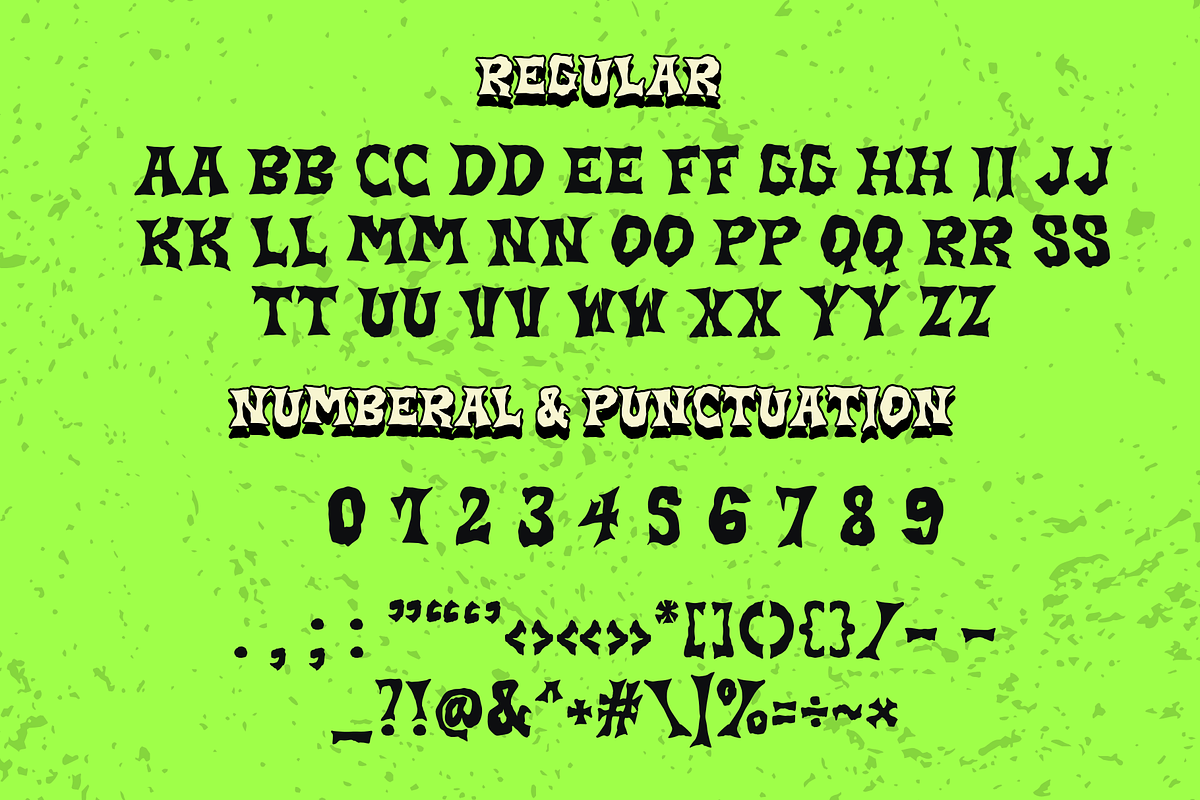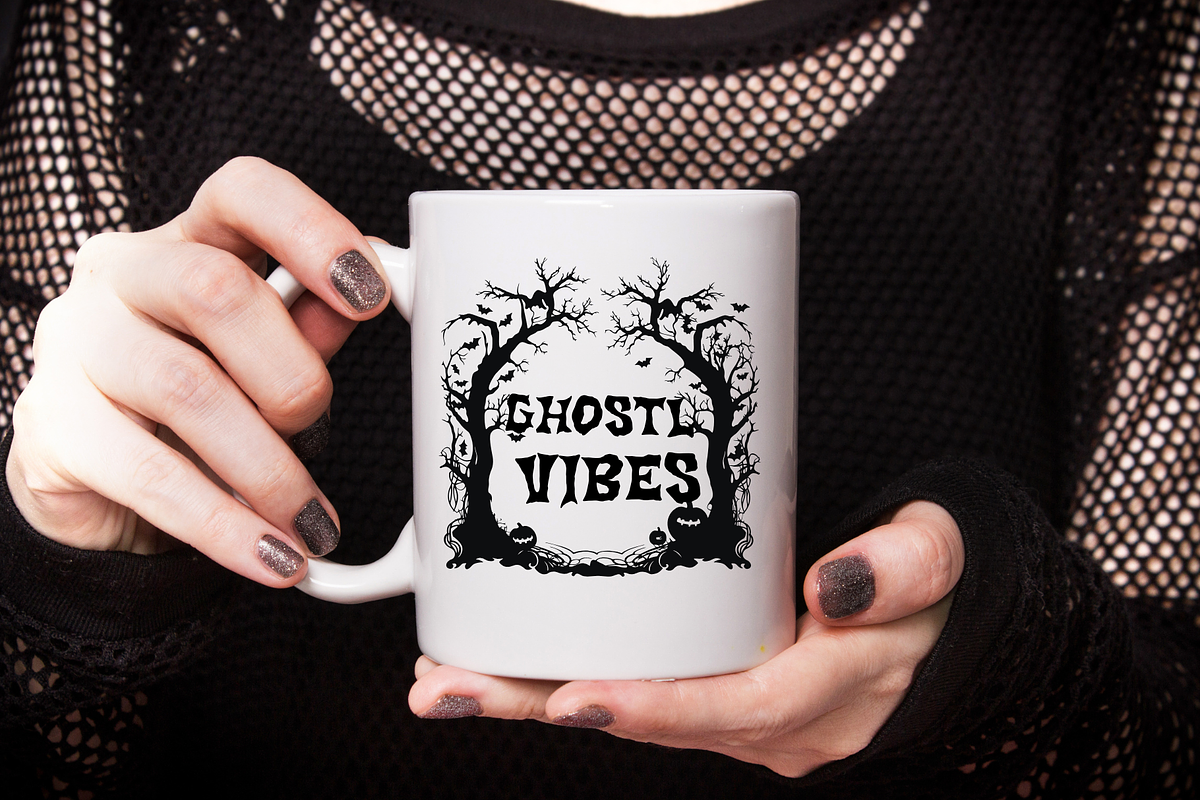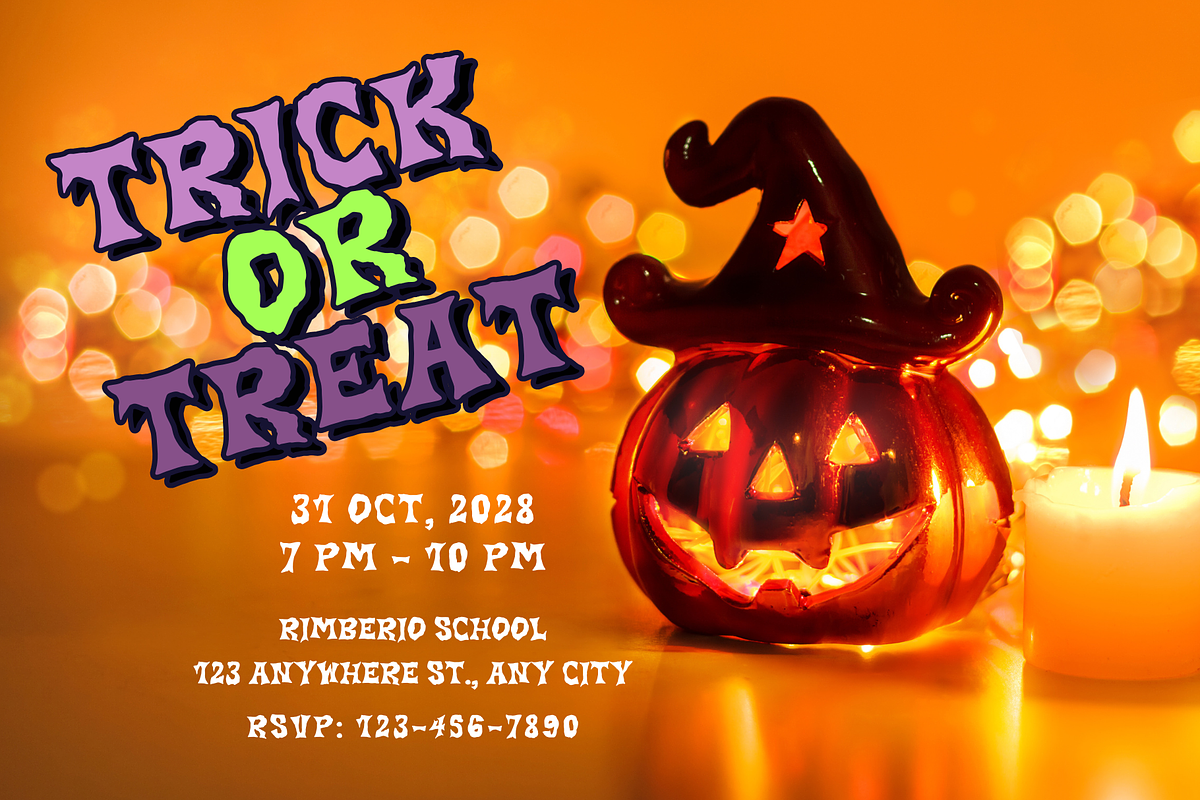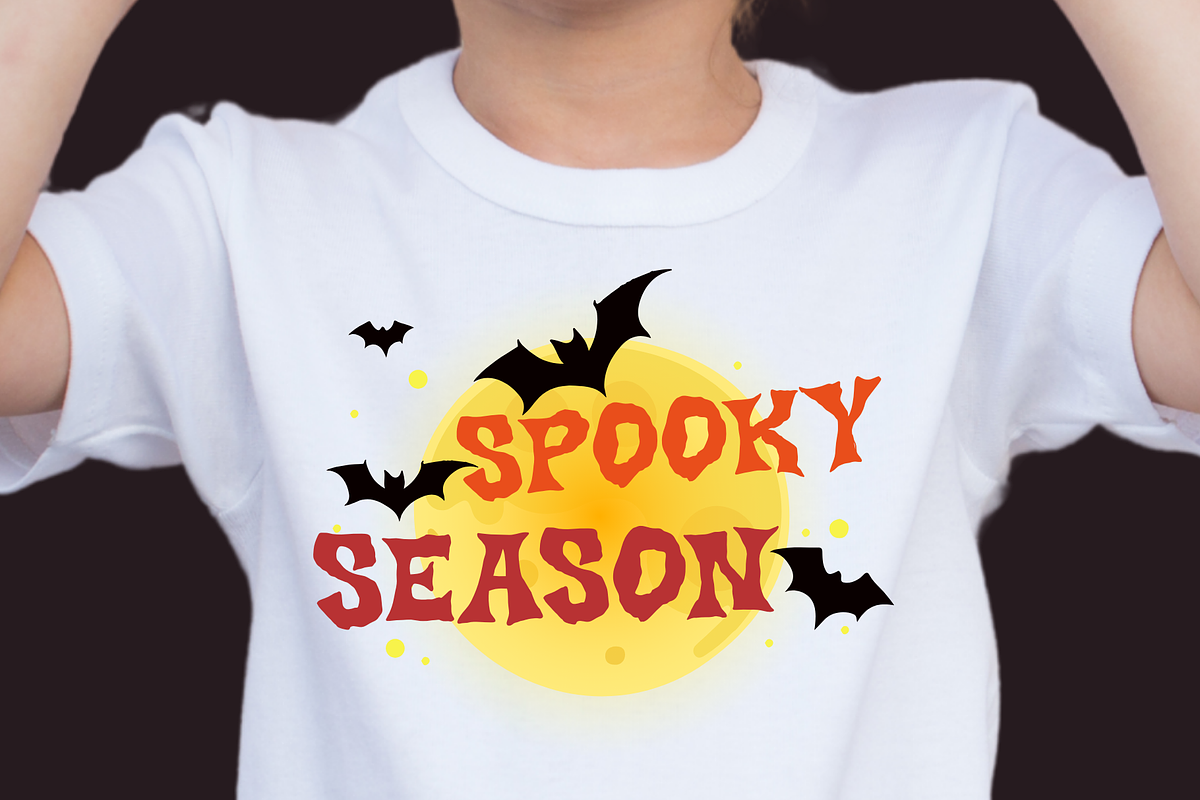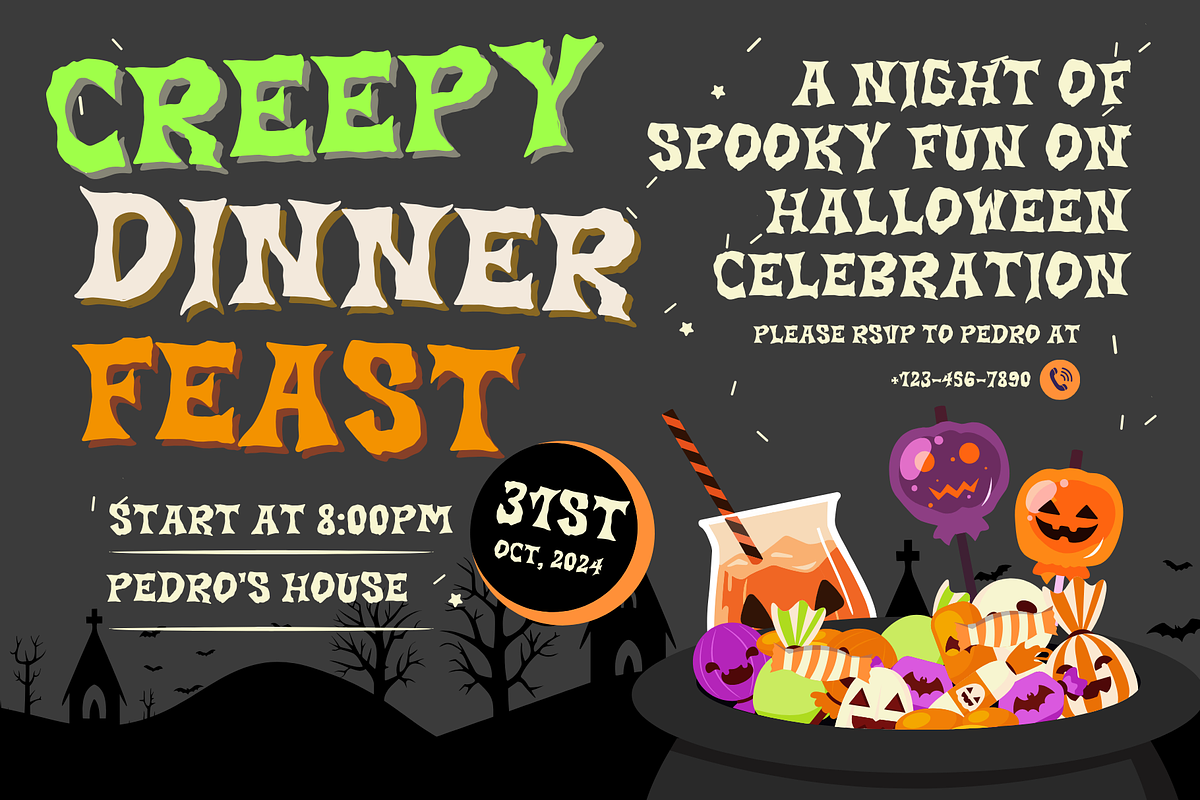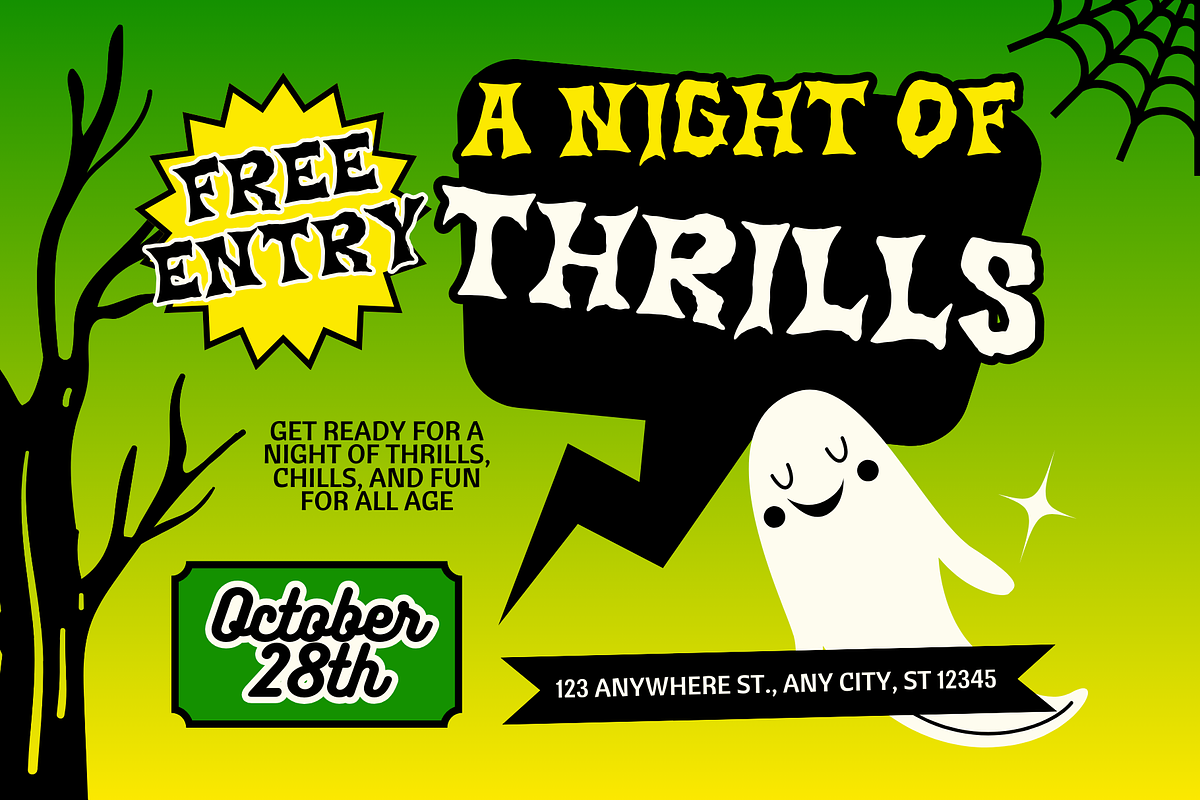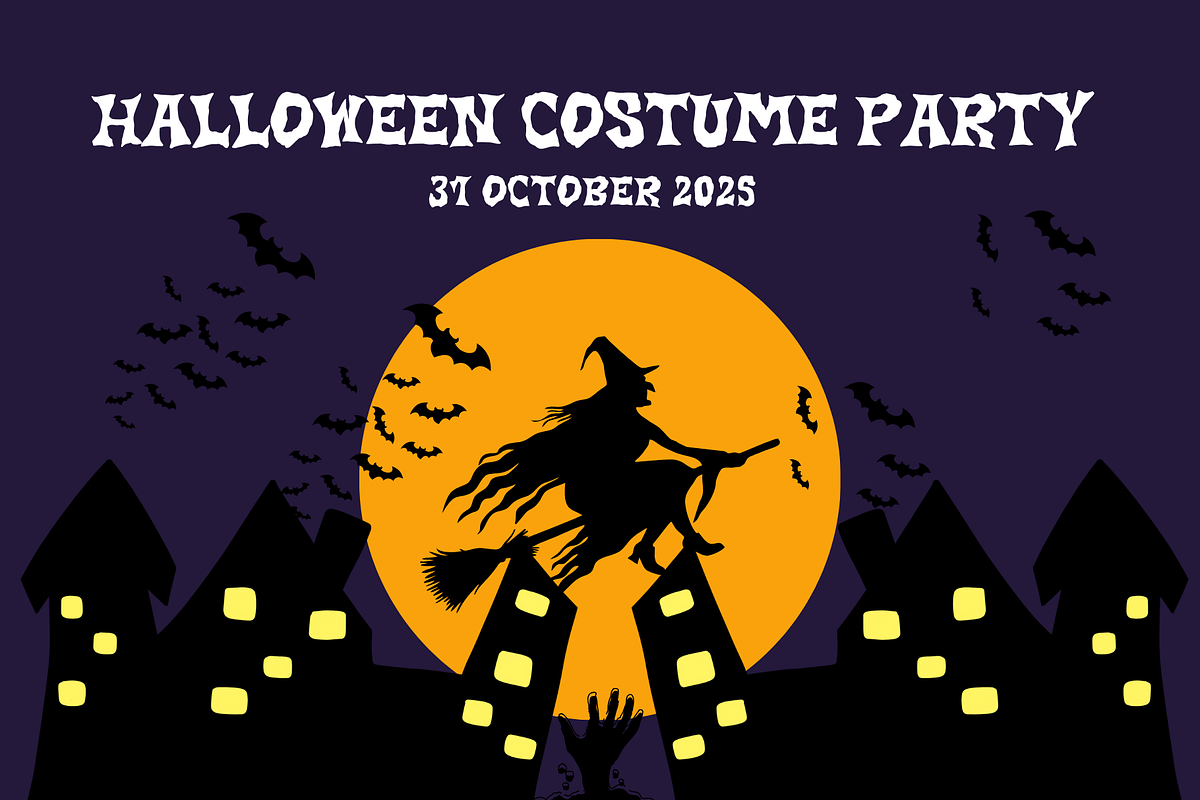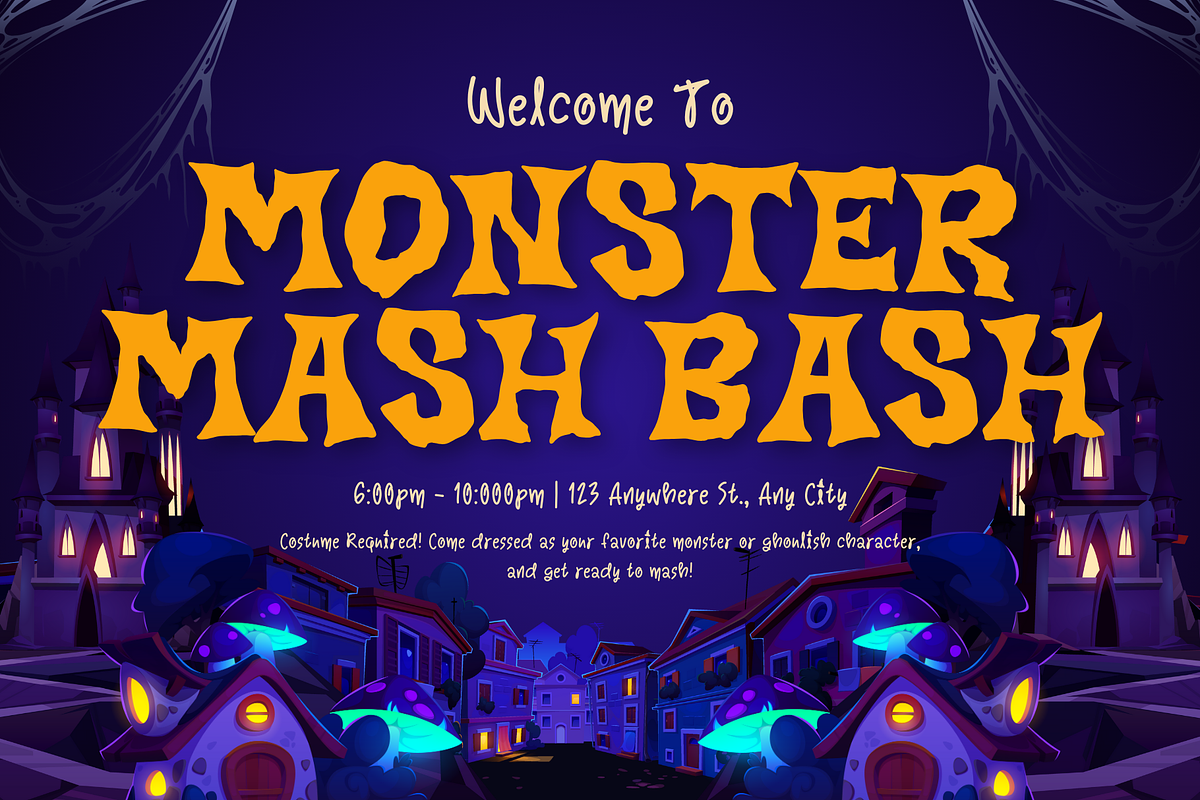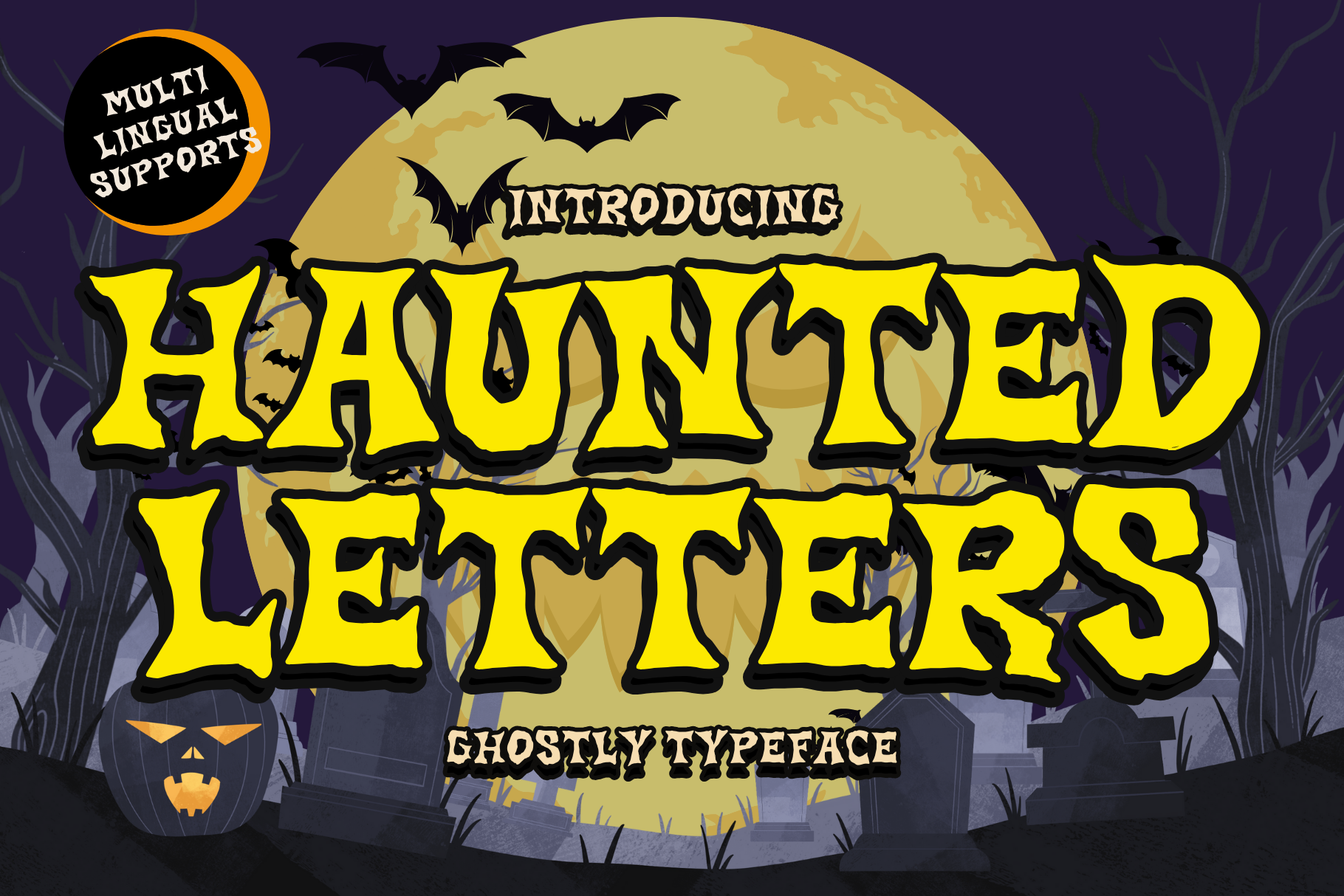
Haunted Letters is a Halloween font
Haunted Letters is a Halloween decorative font. It embodies playfulness and authenticity and is the perfect choice for all your favorite projects, such as blog posts, logos, branding, ads, invitations, greeting cards, planners, photo albums, decorations, and more. Add it to any of your designs, and enjoy the results!